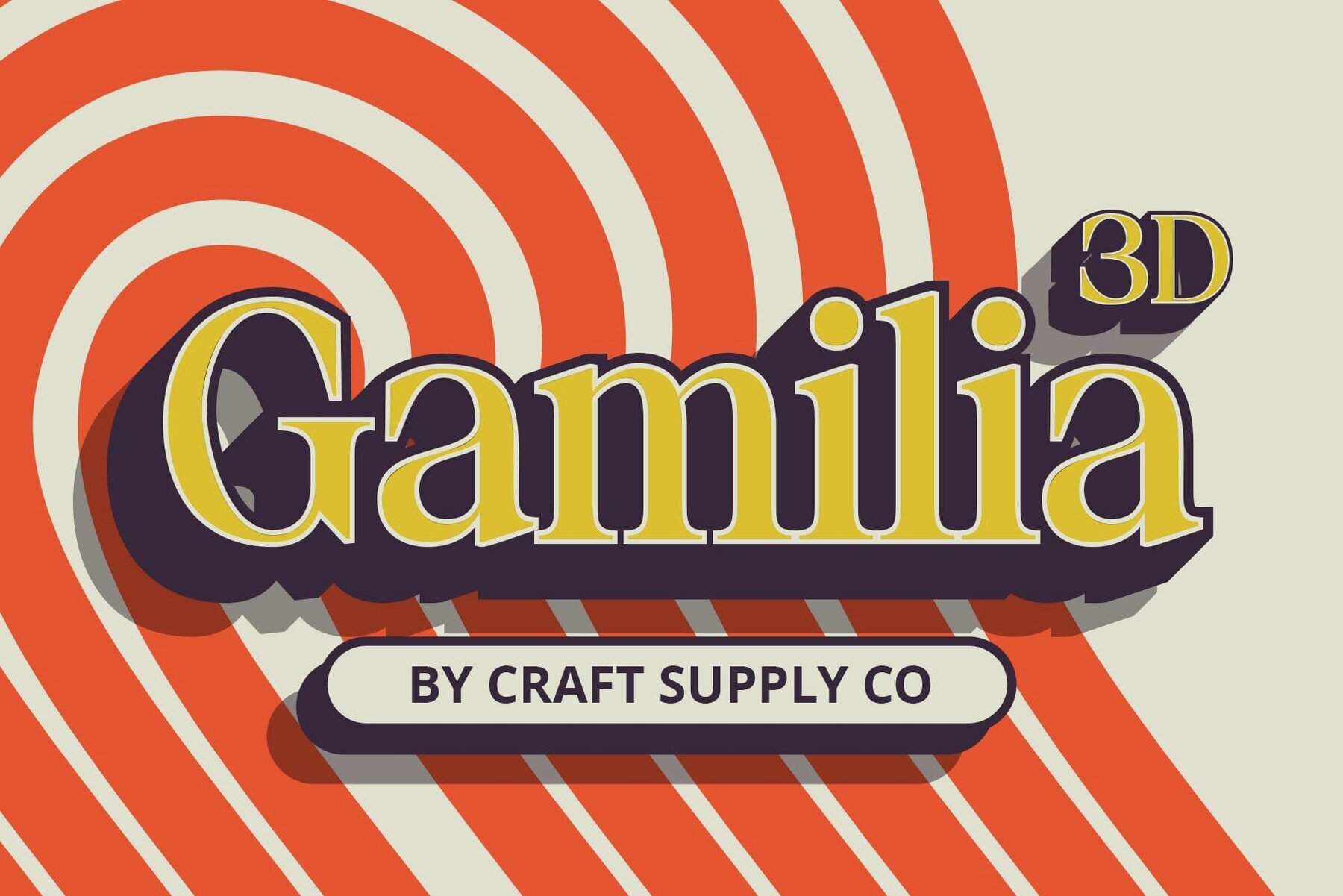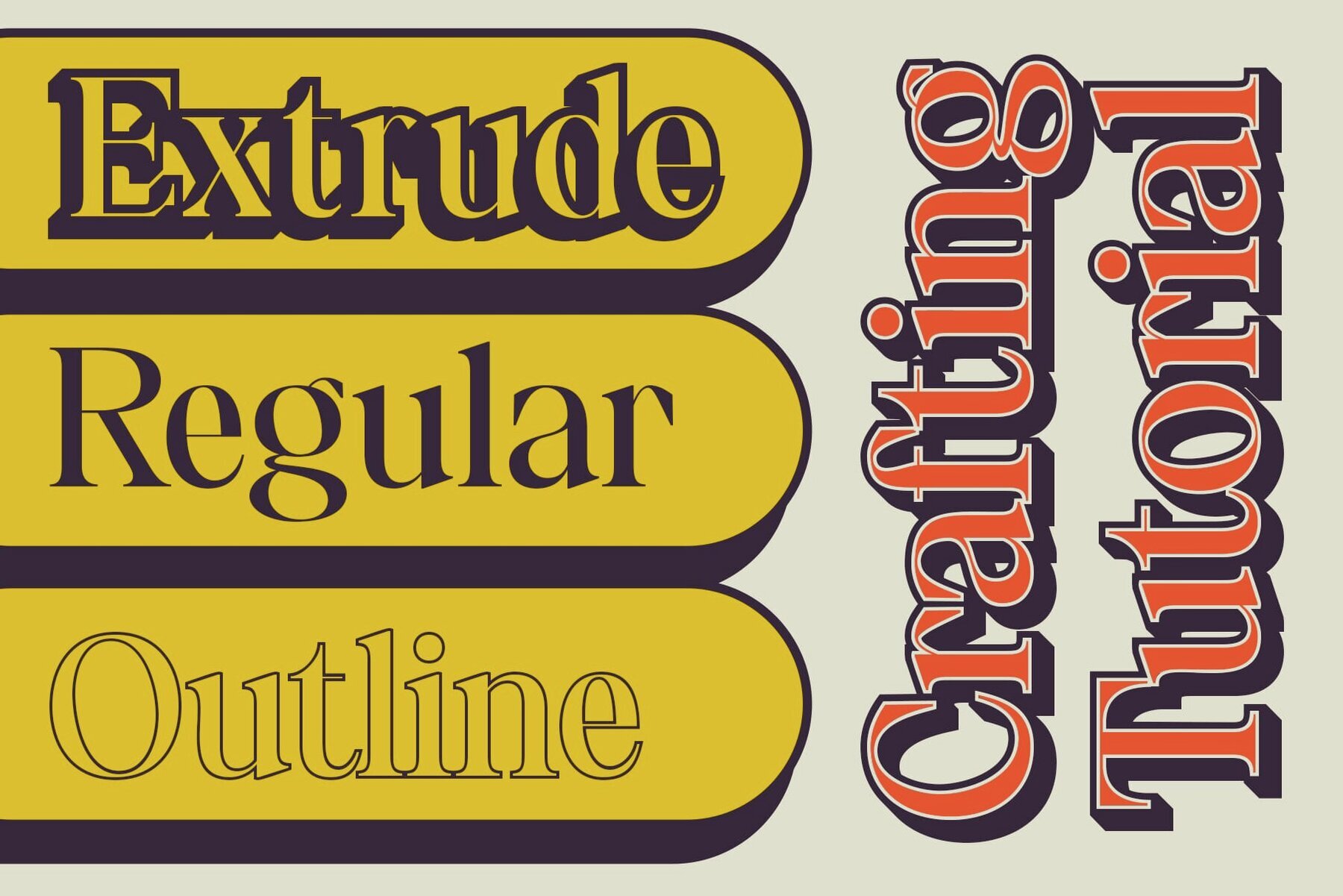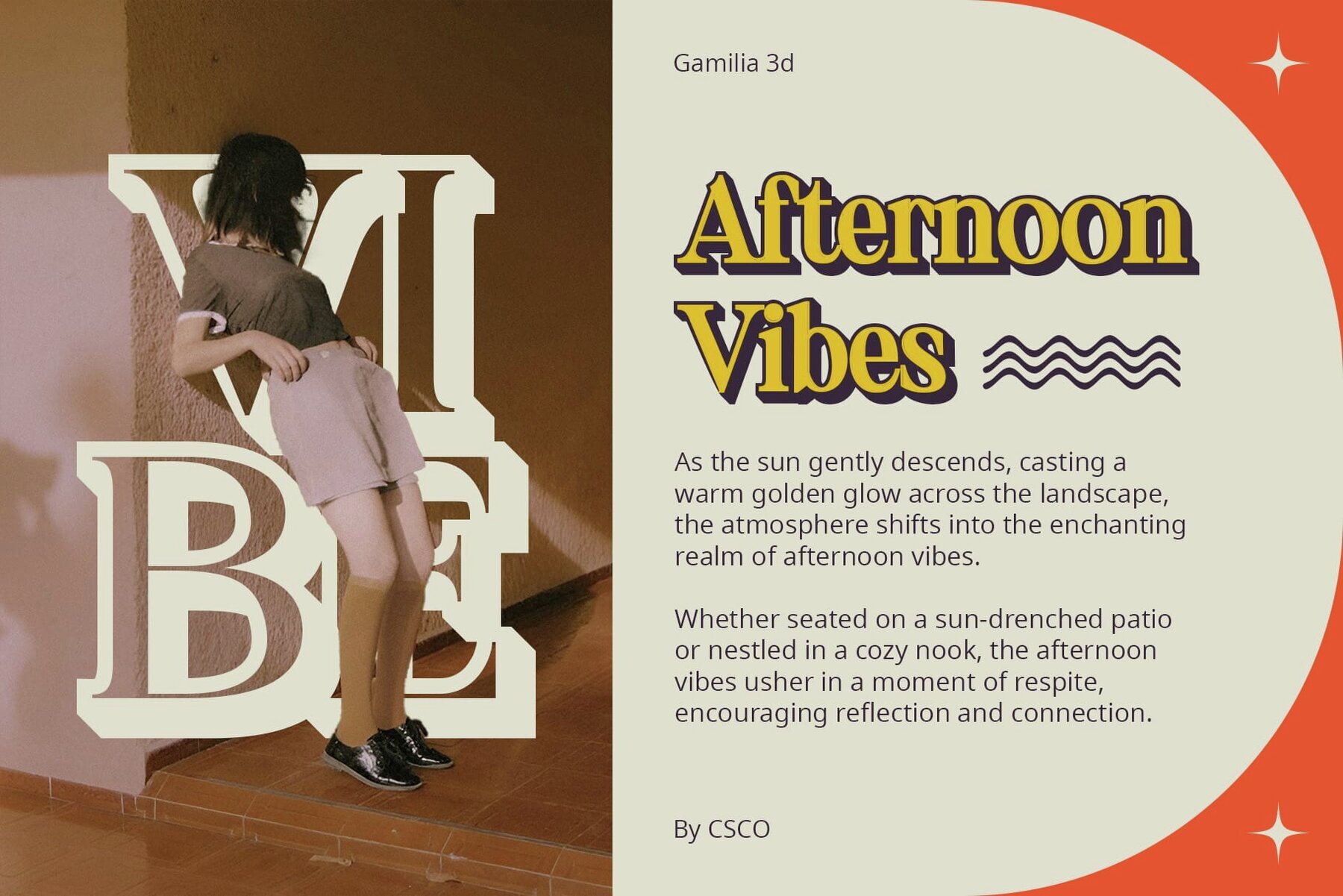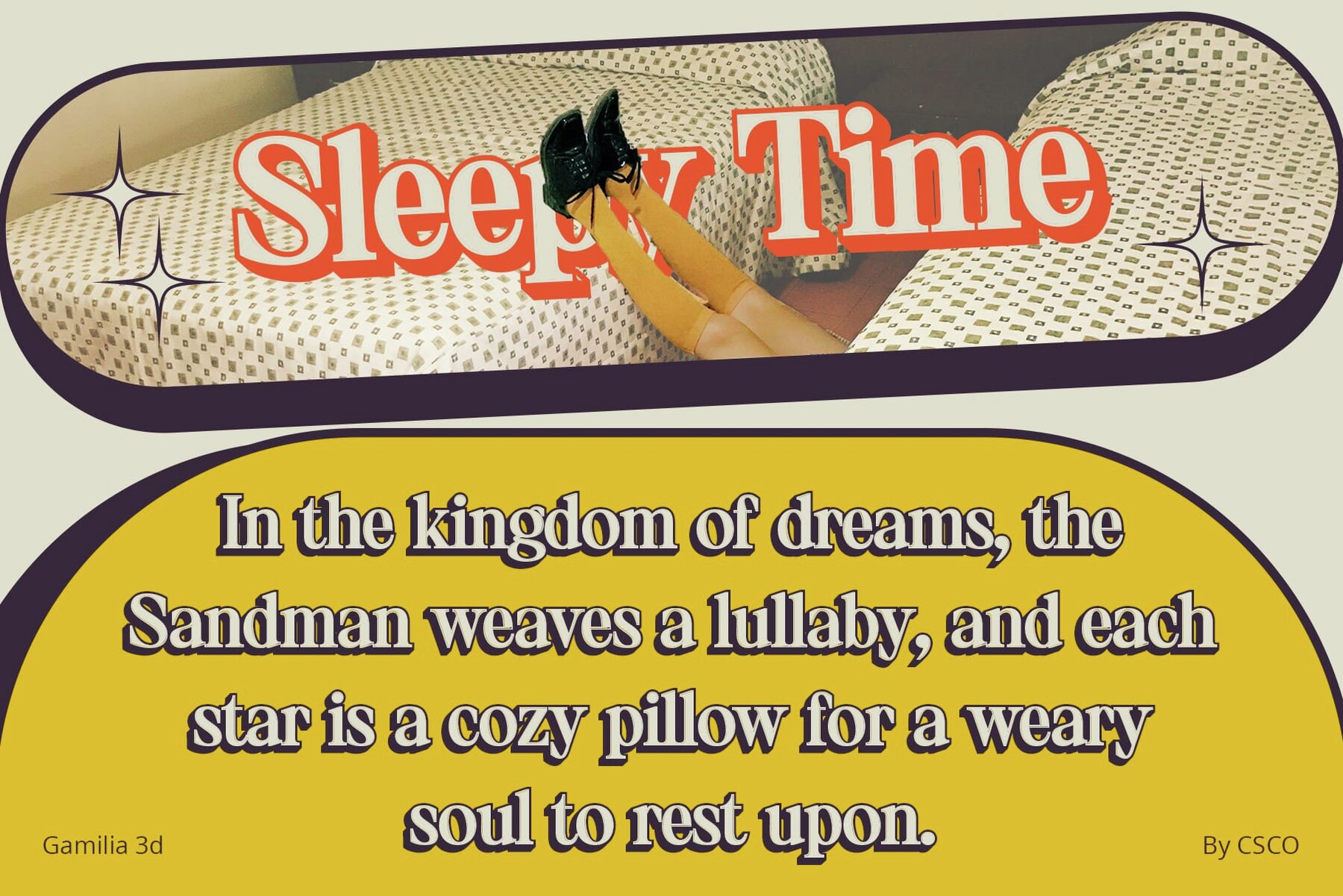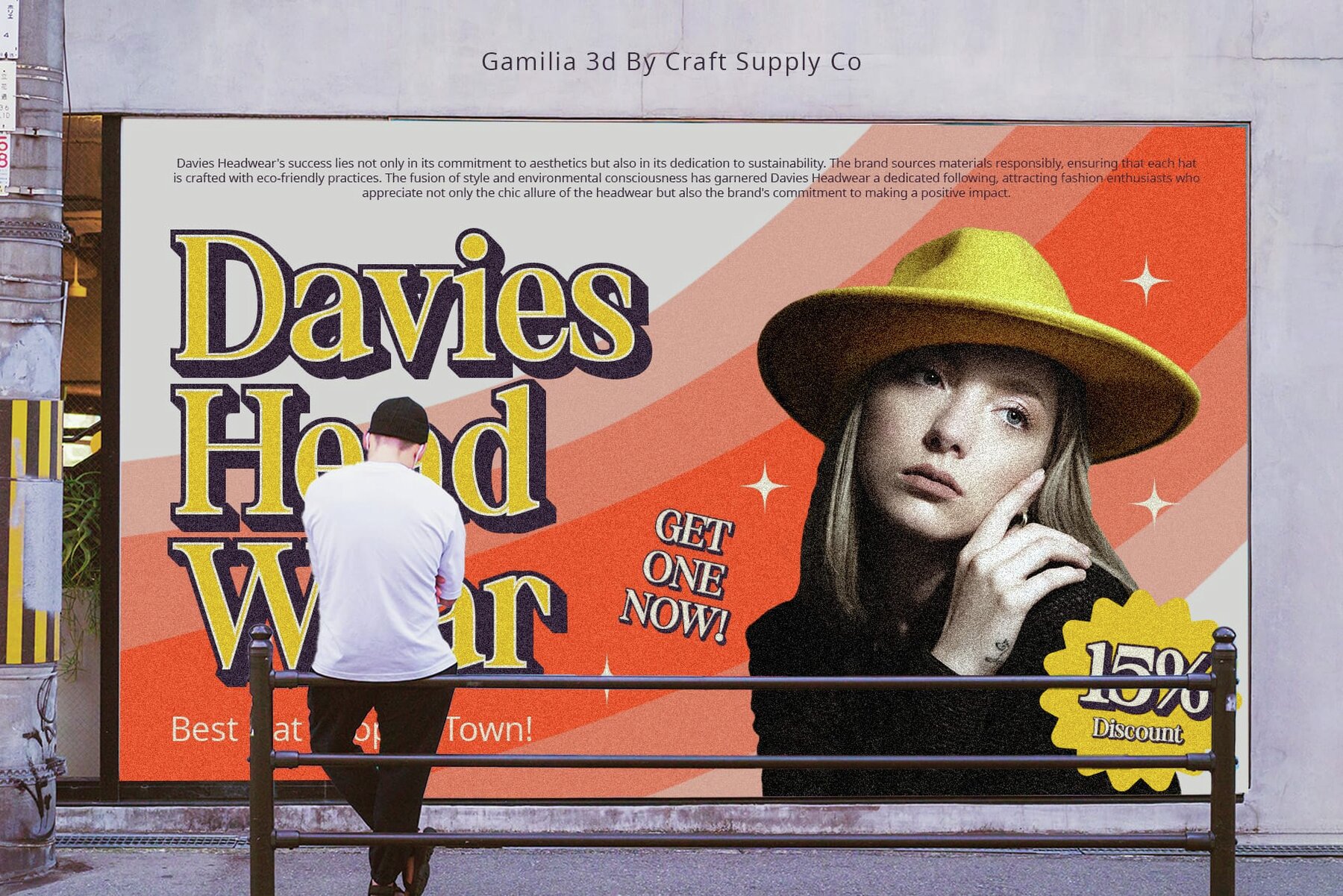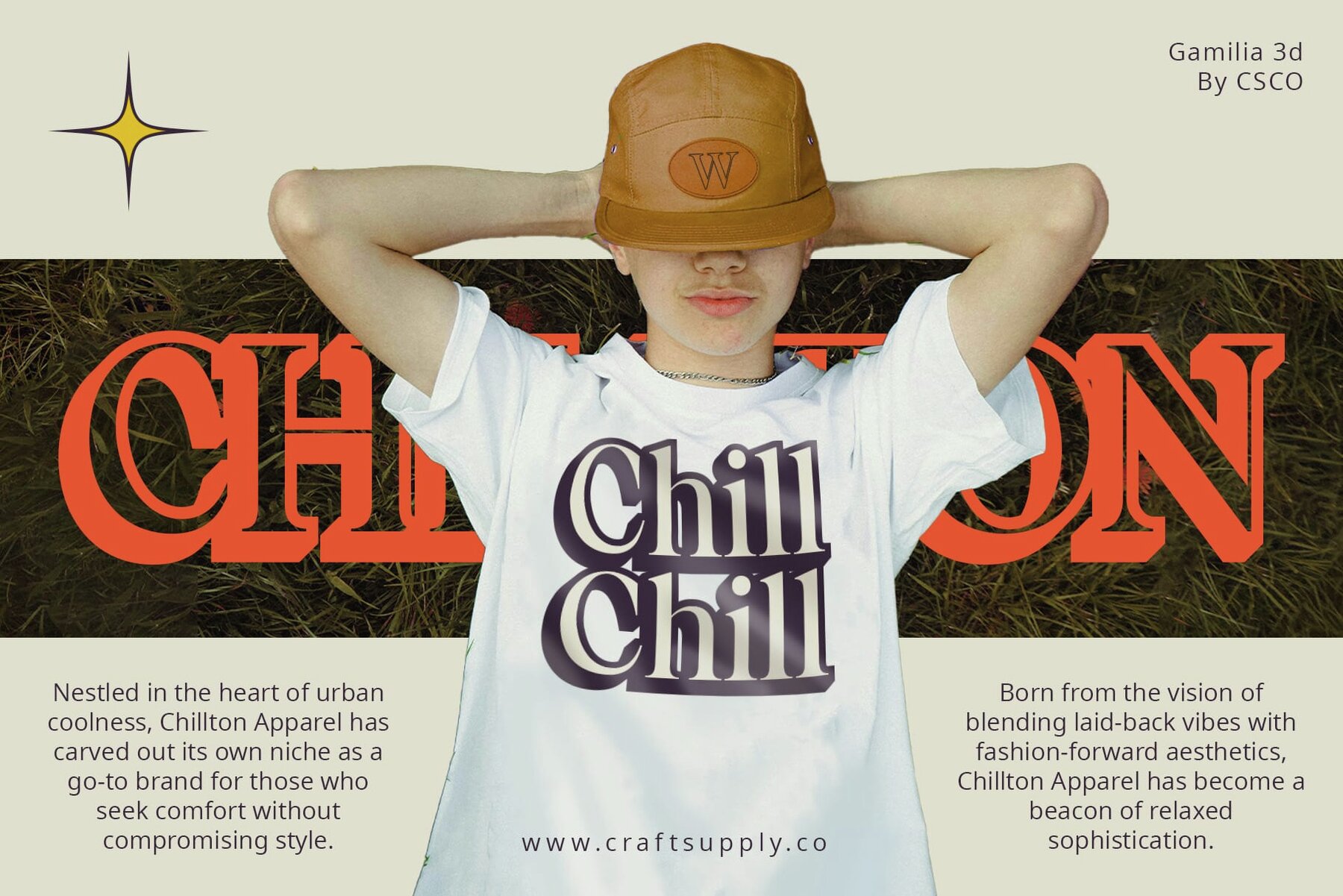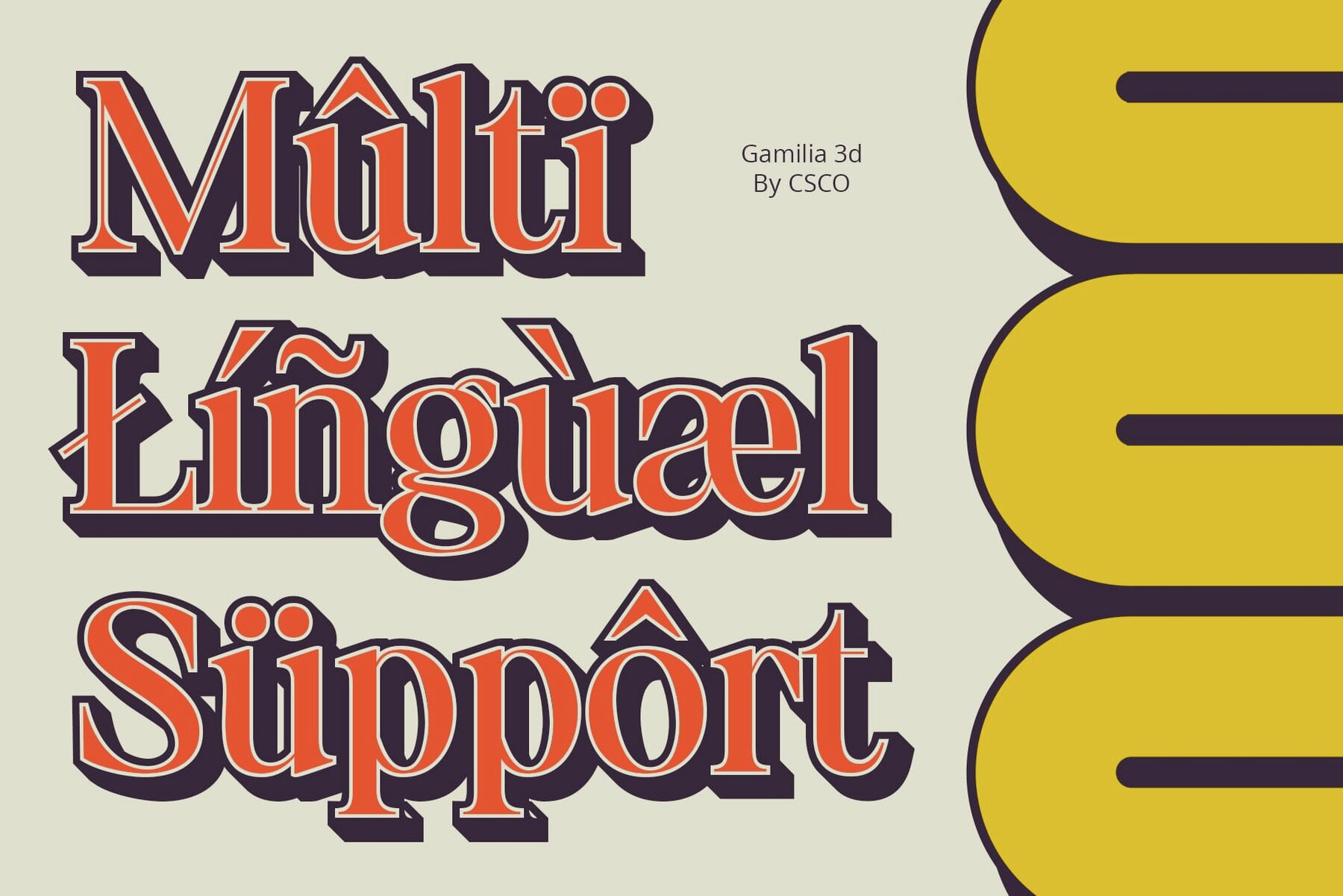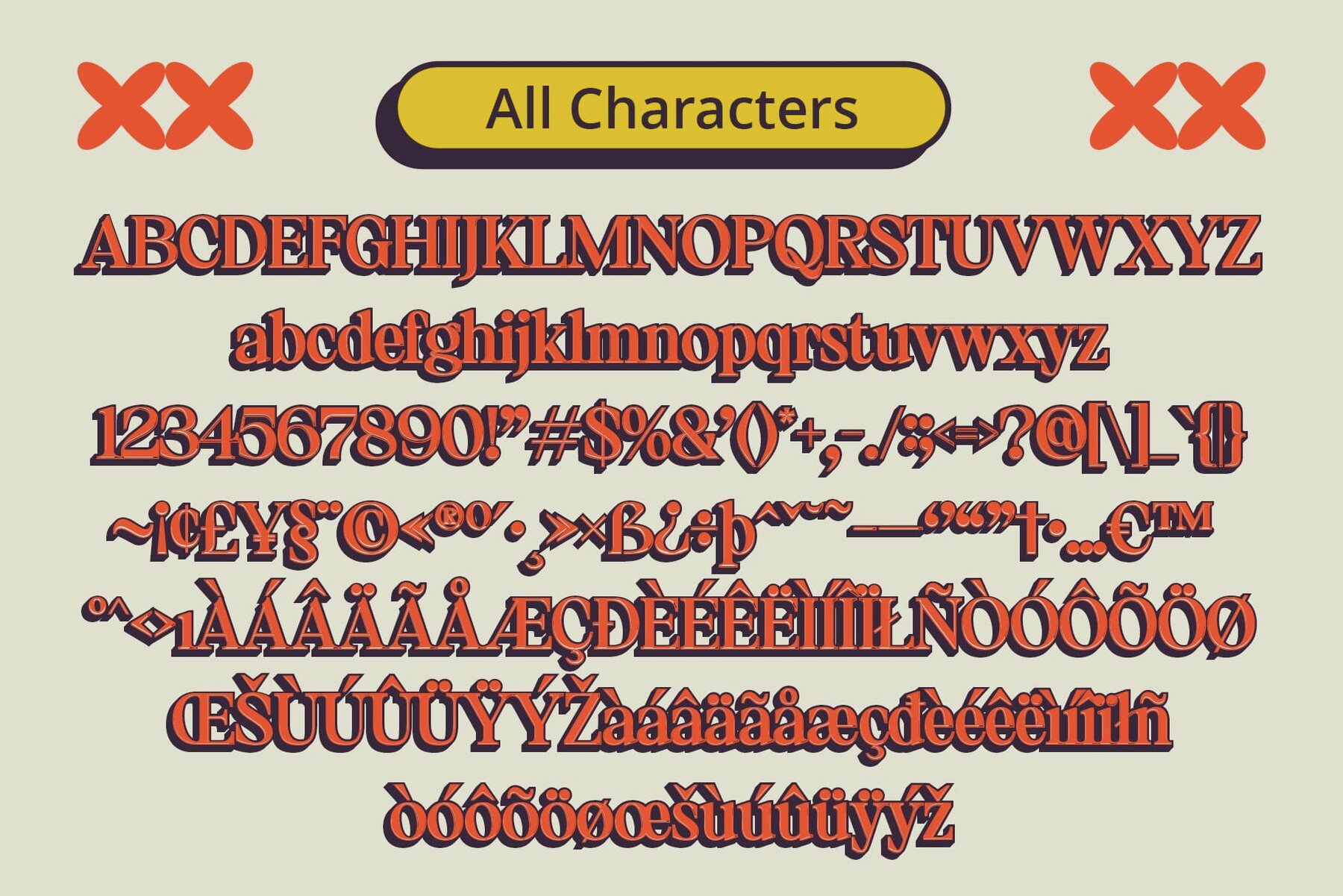
Gamilia 3D Font
Crafted in 3D Brilliance Gamilia 3D presents a captivating serif display font, meticulously crafted with mesmerizing 3D effects. Each character embodies depth and dimension, adding a touch of sophistication to any display project. Infusing classic serif aesthetics with contemporary 3D technology, Gamilia 3D offers a seamless blend of timeless elegance and modern flair. Its striking presence commands attention, making it ideal for various display needs. Designed specifically for display purposes, this font excels in a range of applications, from signage to branding. Its bold serif design, coupled with intricate 3D detailing, ensures maximum impact and visual appeal. Beyond its captivating appearance, this font offers versatility in application. Whether used in digital banners, print advertisements, or editorial layouts, its 3D serif style lends a unique charm to every project. This font emerges as a beacon of innovation in display typography. With its fusion of classic serif elements and contemporary 3D effects, it sets a new standard for elegance and visual impact in display fonts. Experience the allure of Gamilia 3D and elevate your designs to new heights of sophistication. You can use this typeface without needing any specialized software. If you have any inquiries or need assistance, please feel free to contact us. We appreciate your support in enhancing your creative projects!Gamilia 3D: Redefining Display Typography
Serif Elegance, Elevated
Tailored for Display Excellence
Versatility in Application
Tradition Meets Innovation